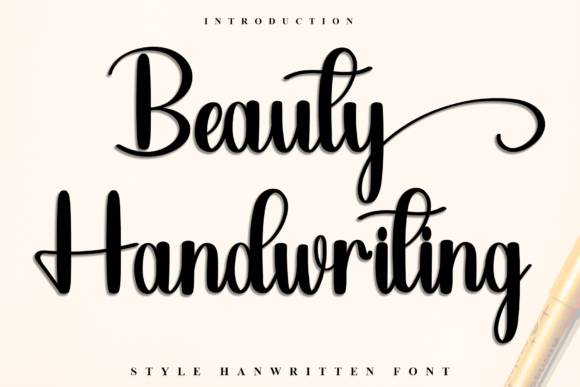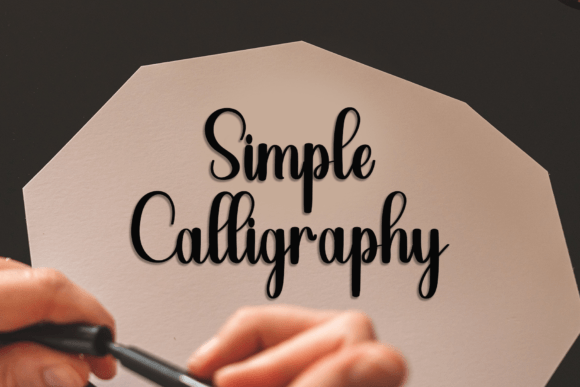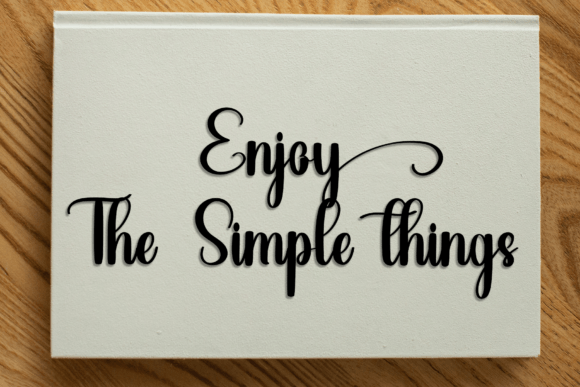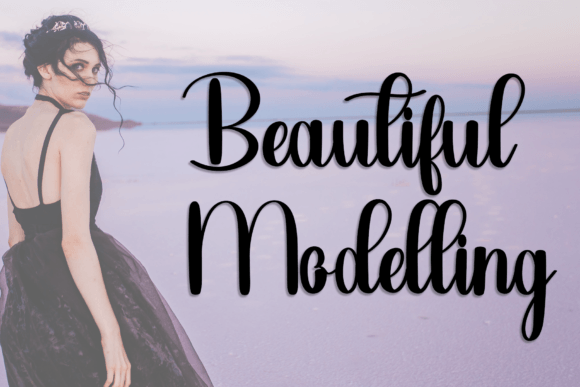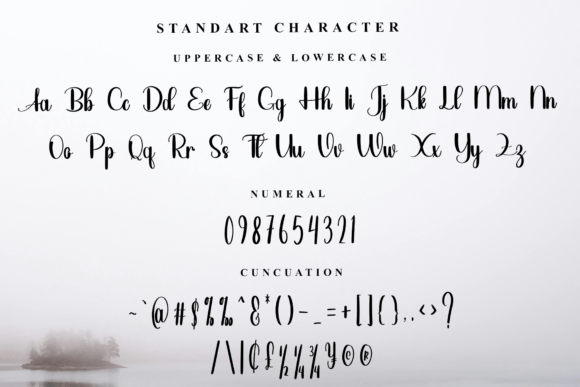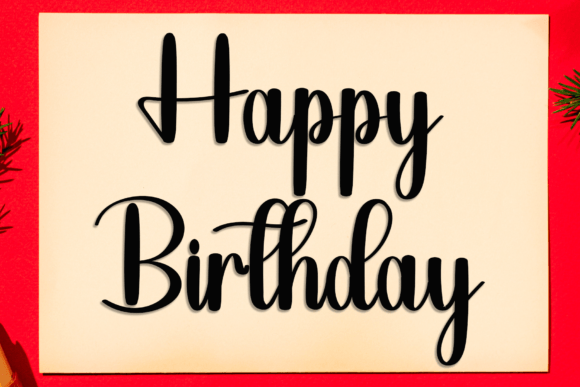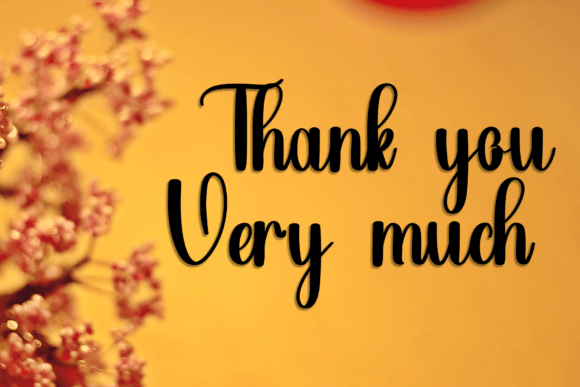
The Magic of Handwritten Charm: Unlocking the Beauty Handwriting Font
There’s something special about receiving a handwritten note or card during the holiday season. The imperfections and unique flair of a handwritten message make it feel more personal and heartfelt. As a designer, you’re always on the lookout for ways to capture that same sense of charm in your digital designs.
That’s where the Beauty Handwriting Font comes in – a festive and happy typeface that embodies the spirit of the holiday season. With its decorative elements and unique flair, this font adds a touch of whimsy to your designs, making it perfect for greeting cards, gift labels, and holiday-themed projects.
As a designer, you know how valuable a great font can be in elevating your work. The Beauty Handwriting Font is no exception, offering a range of glyphs and ligatures that can be easily accessed thanks to its PUA coding. Whether you’re working on a holiday project or simply want to add a touch of personality to your designs, this font is sure to delight.
Key Features of “Beauty Handwriting Font”
- Unique Characteristics: This font features a beautiful, handwritten style with elegant flourishes and subtle imperfections, giving it a unique and personal touch.
Beauty Handwriting Font Review
I’ve had the chance to work with the Beauty Handwriting Font, and here’s my honest review:
- Unique and elegant design: The font has a beautiful, handwritten feel that’s perfect for adding a touch of personality to your projects.
- Excellent legibility: Despite its handwritten appearance, the font is surprisingly easy to read, making it a great choice for body text or titles.
- Limited character set: The font only includes uppercase and lowercase letters, numbers, and a few punctuation marks, which may not be enough for some projects.
- No italic or bold variations: While the font is elegant, it would be nice to have more style options to add some depth and variety to your designs.
- Not suitable for large-scale use: Due to its handwritten nature, the font may not be the best choice for large blocks of text or high-impact headlines.
The Beauty Handwriting Font is a beautiful and elegant addition to any design project. While it has some limitations, its unique design and high-quality vector files make it a great choice for adding a touch of personality to your work. Just be aware of its limitations and use it accordingly.
For the most effective use of the Beauty Handwriting Font, use it sparingly and in creative ways, such as:
1. Wedding invitations or stationery.
2. Social media graphics and quotes.
3. Digital planners and journals.
4. Branding and logos.
Remember to pair the Beauty Handwriting Font with a clear and legible font for easy reading.
Q: Can I customize the Beauty Handwriting Font to fit my design needs?
While the Beauty Handwriting Font is designed to be versatile and easy to use, some customization options may be limited due to its hand-drawn nature. However, you can experiment with font styles, sizes, and spacing to achieve the desired look and feel for your project.